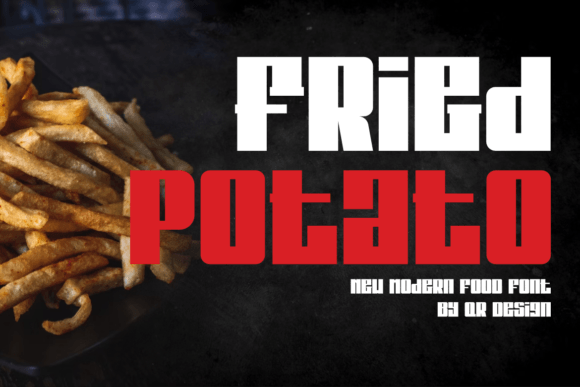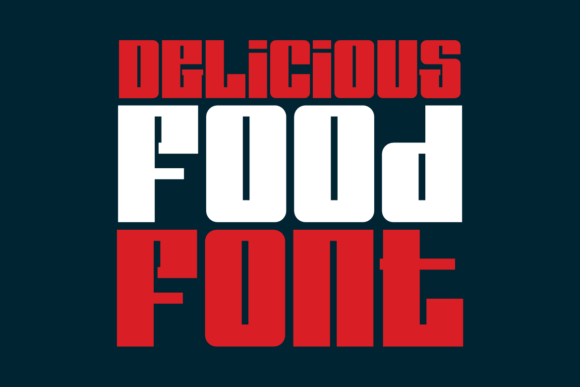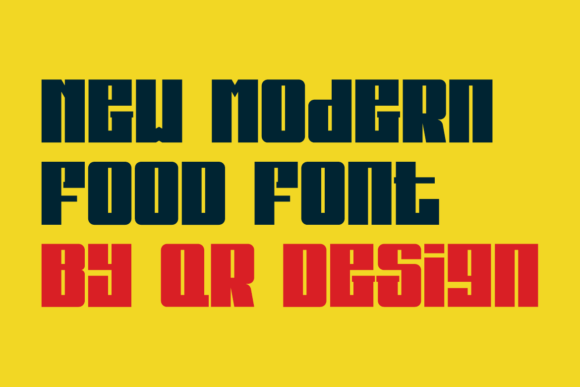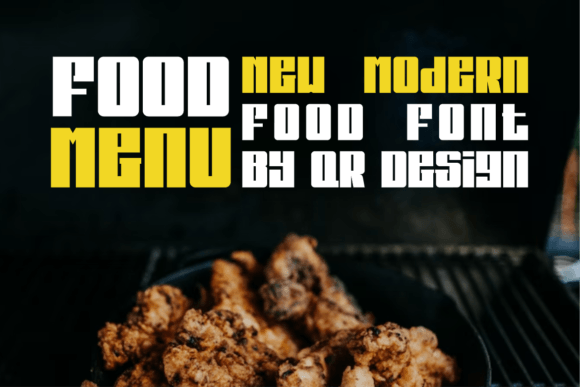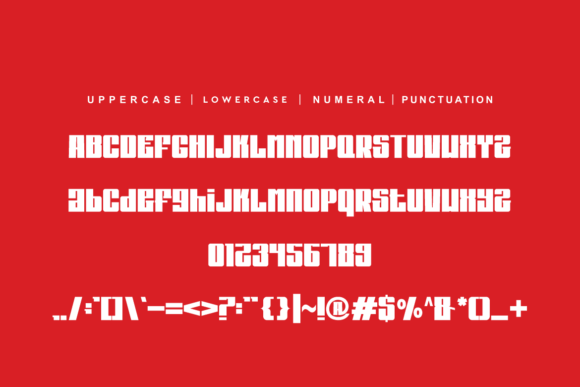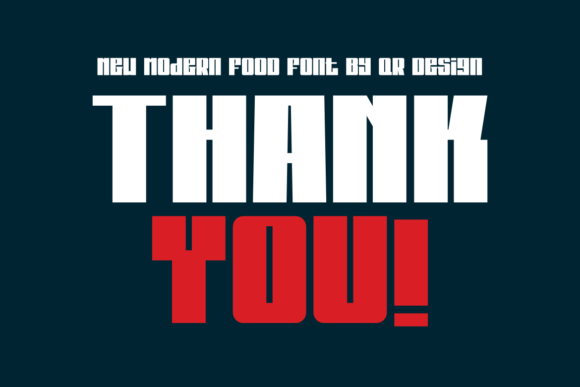
Introduction to Goreng Garing Font
Goreng Garing Font is a bold and authentic display font.
This modern font is suitable for any branding project like logo, t-shirt printing, food, and many more Outstanding in a wide range of contexts.
Key Features of Goreng Garing Font